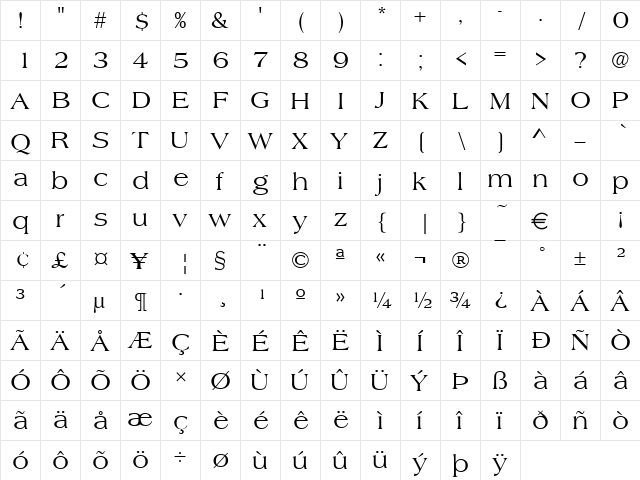
URWAmericanaT Regular
Design Context for URWAmericanaT Typeface
URWAmericanaT offers clean, dependable letterforms without strong stylistic allegiance, making it a practical choice for designers who need flexibility.